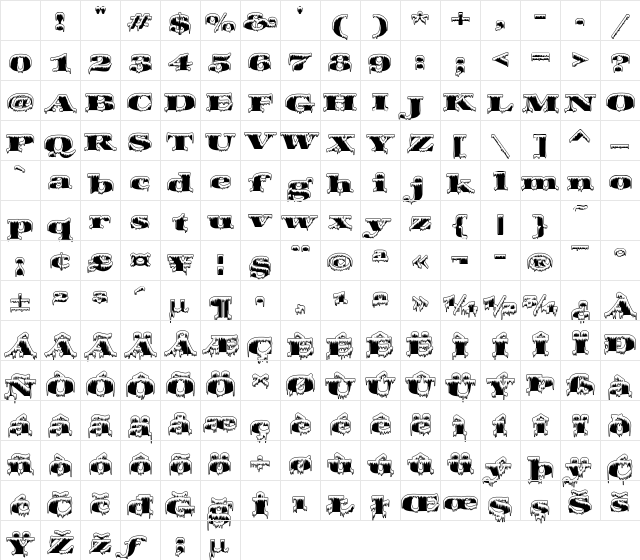
Complete Zapf 'SnowBound' Heavy glyph index. Displaying only characters natively supported by Zapf 'SnowBound' Heavy font.
Zapf 'SnowBound' is a composed and adaptable typeface that performs quietly and consistently across a wide range of design contexts.